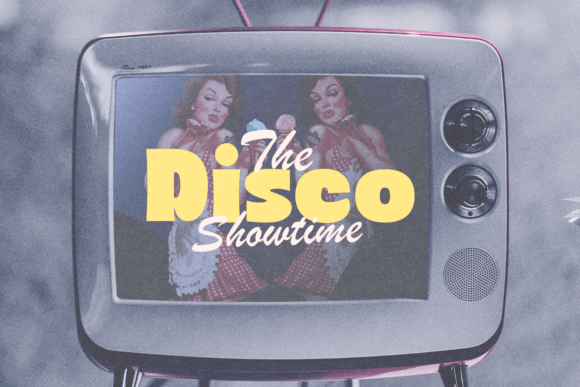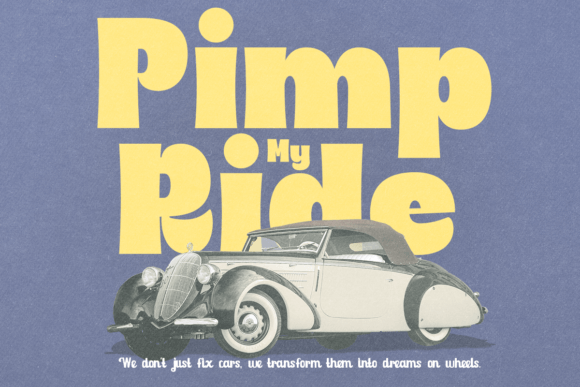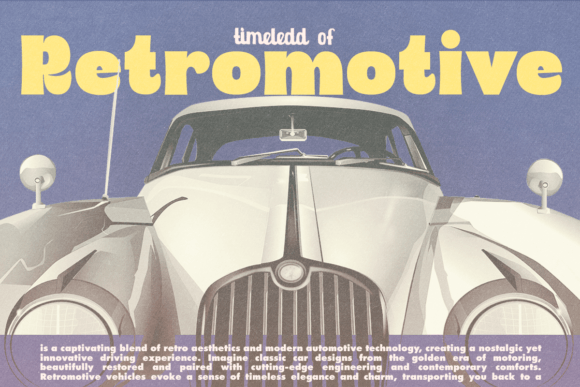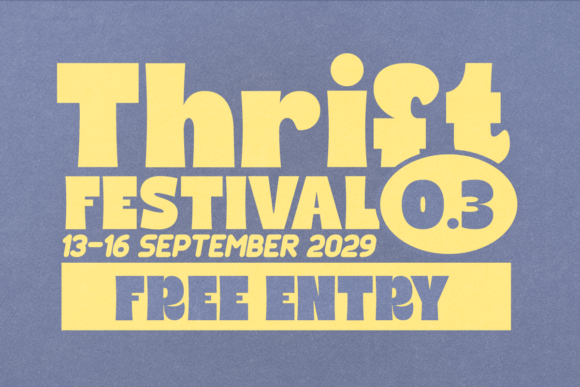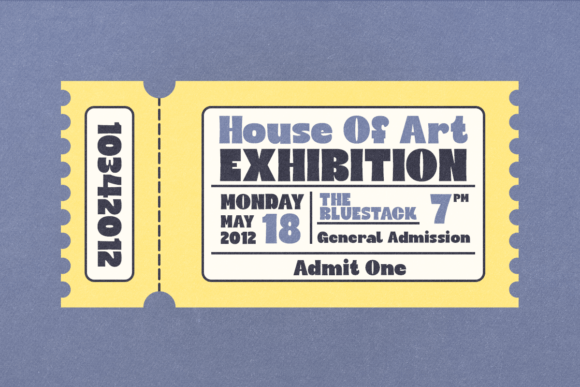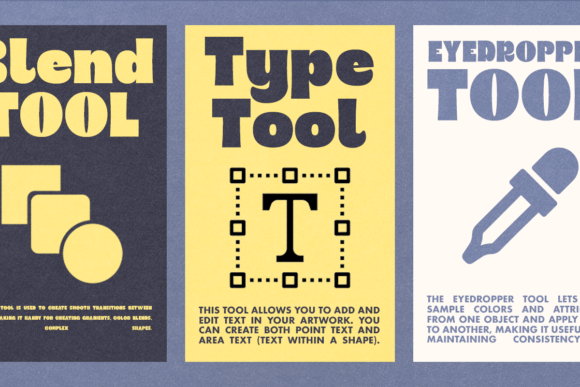
Ghafy Font: A Groovy Retro Typeface to Bring Back the 70s Vibes
Are you a designer or crafty enthusiast looking for a font that embodies the spirit of the 1970s? Look no further than Ghafy Font, a display typeface inspired by vintage magazines from around the 70s. With its groovy, retro, and unique design, Ghafy is the perfect addition to your nostalgic mood boards and vintage logos.
The Birth of Ghafy Font
Ghafy Font was born out of a passion for the iconic designs of the 1970s. The font’s creators wanted to capture the essence of this era, characterized by its distinctive typography, bold graphics, and carefree vibe. After careful research and design, Ghafy was created to bring back the 70s vibes in a modern and versatile way.
What Makes Ghafy Font Special
Ghafy Font is more than just a retro-style font. Its unique features make it stand out from other display typefaces. Here are some of the key characteristics that make Ghafy special:
- Unique Alternate Characters: Ghafy comes with a range of alternate characters that allow you to add a touch of individuality to your designs. These alternate characters can be used to create a distinctive look that sets your project apart.
- Ligatures: The font also features ligatures, which are special character combinations that create a seamless and cohesive look. Ligatures are perfect for creating vintage-inspired text effects that add a touch of sophistication to your designs.
- Retro Flair: Ghafy’s design is deeply rooted in the 1970s, with a bold and playful aesthetic that’s reminiscent of vintage magazines and posters.
Perfect for Nostalgic Mood Boards and Vintage Logos
Ghafy Font is specifically designed for use in nostalgic mood boards and vintage logos. Its retro vibe and unique features make it an excellent choice for designers and crafters who want to create a distinctive look that’s both nostalgic and modern.
Whether you’re working on a branding project, a packaging design, or a digital graphic, Ghafy Font can help you achieve a unique and eye-catching look. The font’s versatility makes it suitable for a wide range of applications, from print materials to digital media.
Tips for Using Ghafy Font
Here are some tips for getting the most out of Ghafy Font:
- Experiment with Alternate Characters: Don’t be afraid to try out different alternate characters to find the perfect combination for your design.
- Use Ligatures: Ligatures can add a touch of sophistication to your designs. Experiment with different ligature combinations to find the one that works best for your project.
- Mix and Match with Other Fonts: Ghafy Font can be paired with other fonts to create a unique and interesting look. Experiment with different font combinations to find the perfect match.
Ghafy Font is a unique and versatile display typeface that’s perfect for designers and crafters looking to add a touch of nostalgia to their projects. With its groovy, retro, and unique design, Ghafy is sure to bring back the 70s vibes in a modern and stylish way. Whether you’re working on a branding project, a packaging design, or a digital graphic, Ghafy Font is an excellent choice for creating a distinctive and eye-catching look.